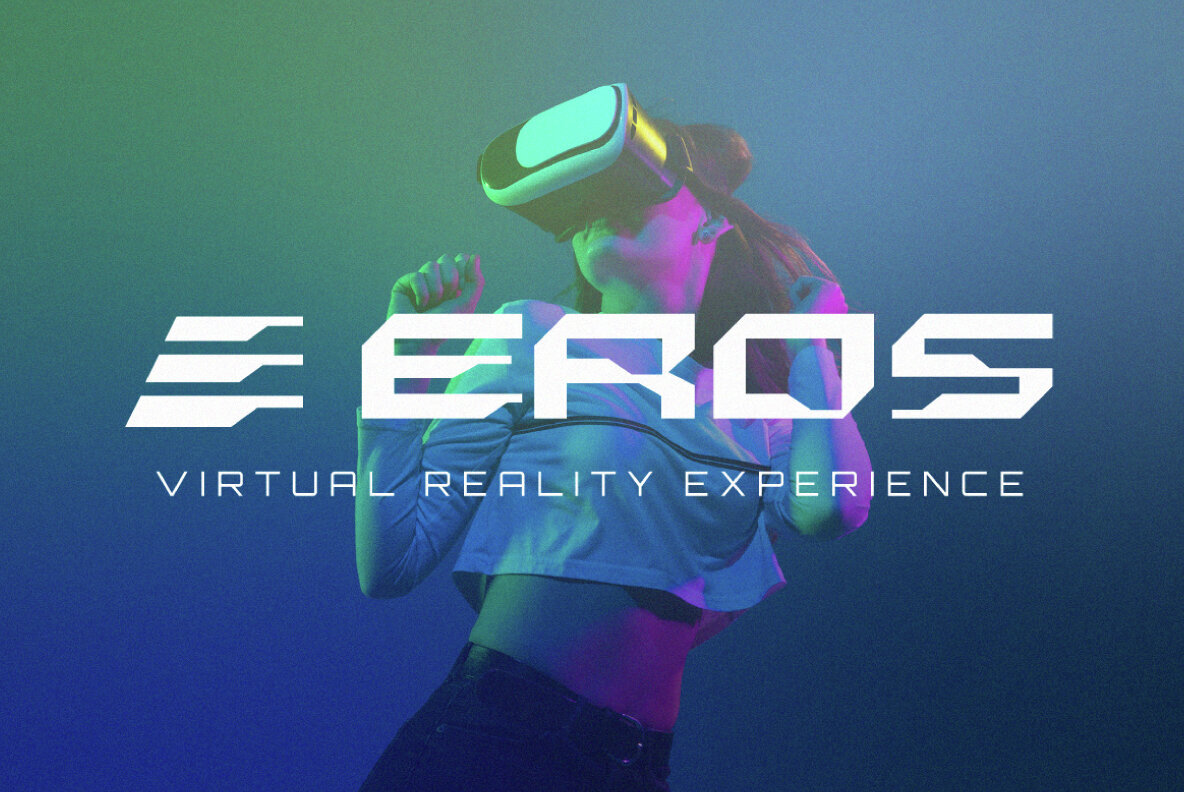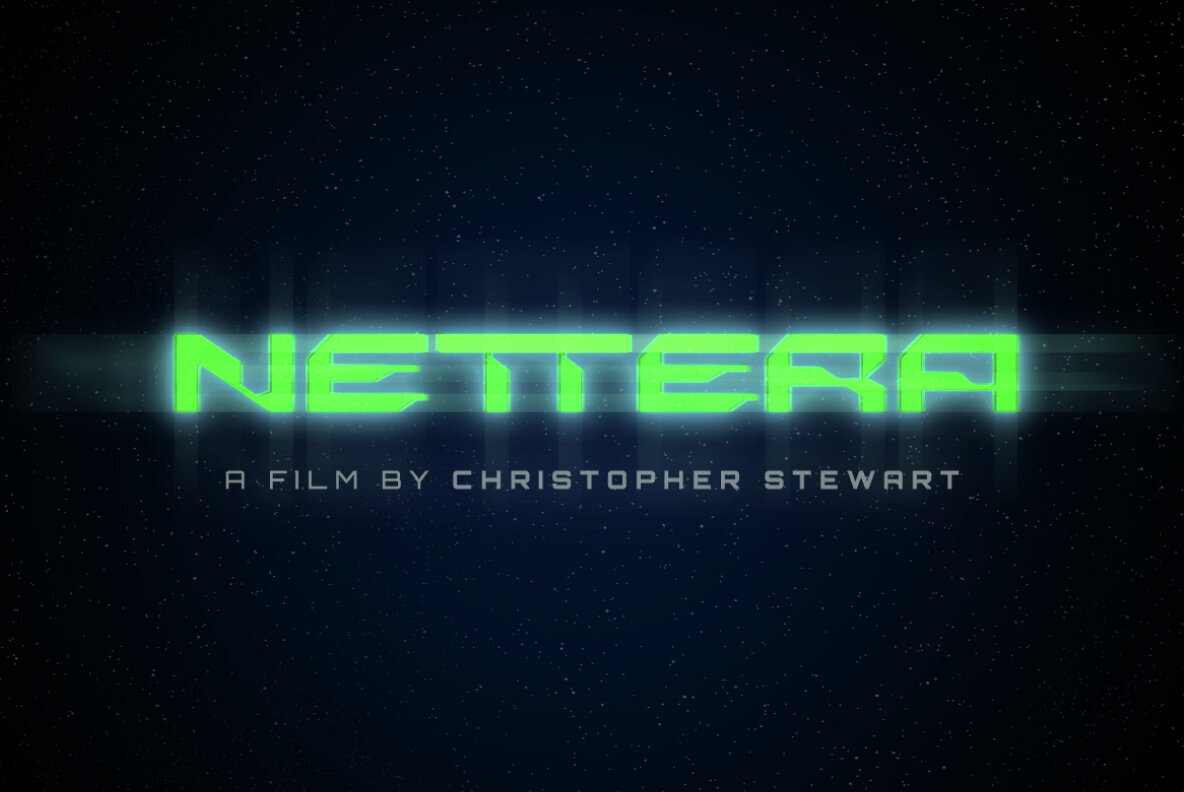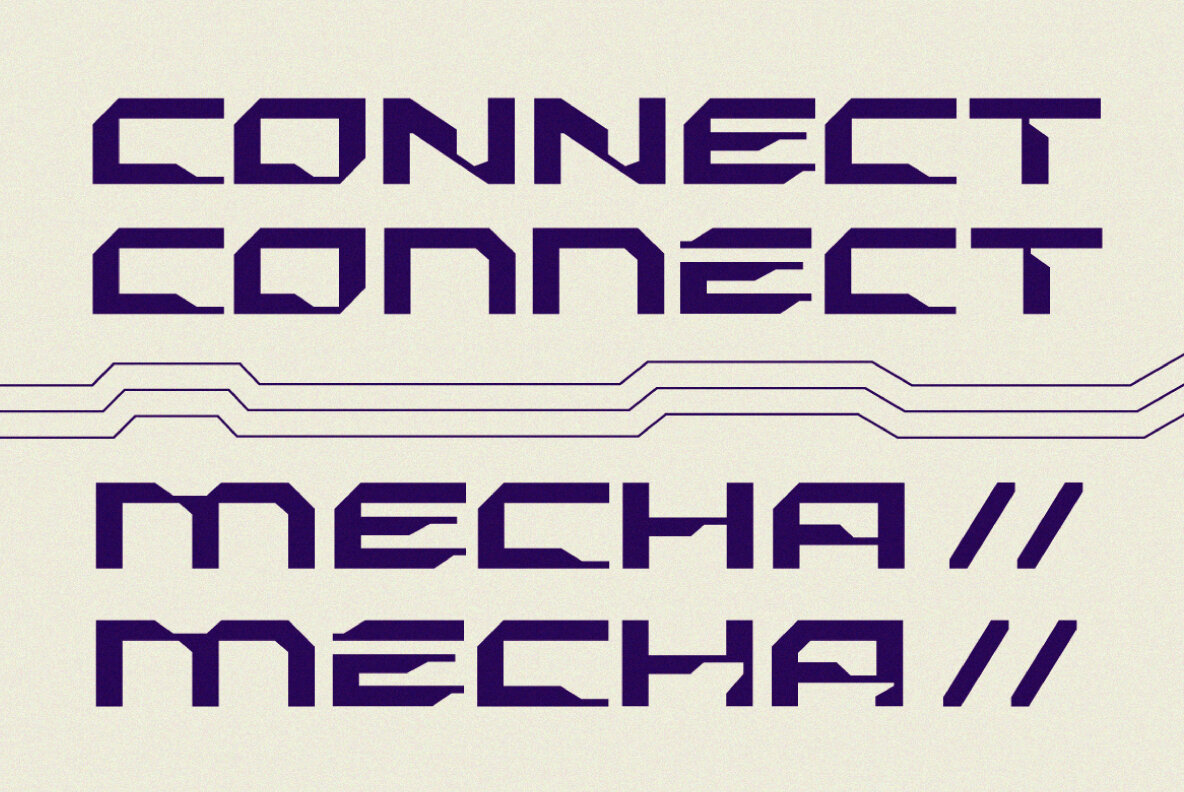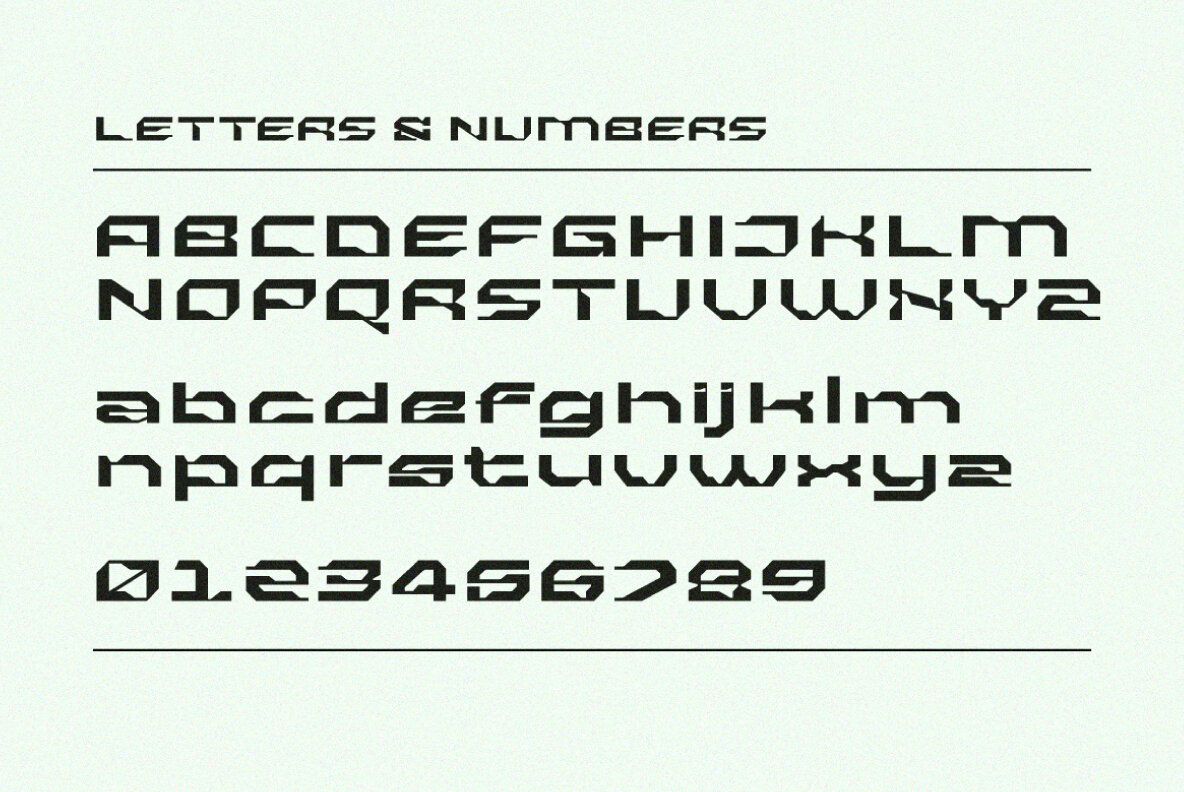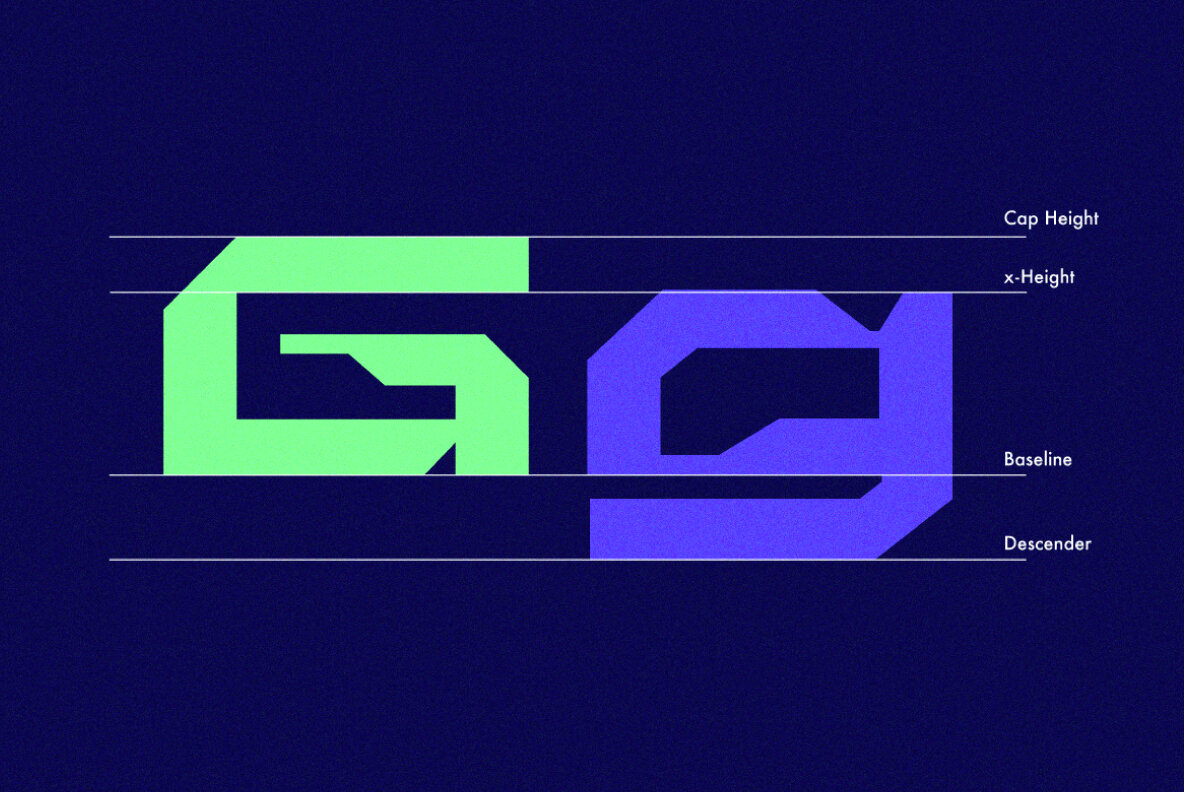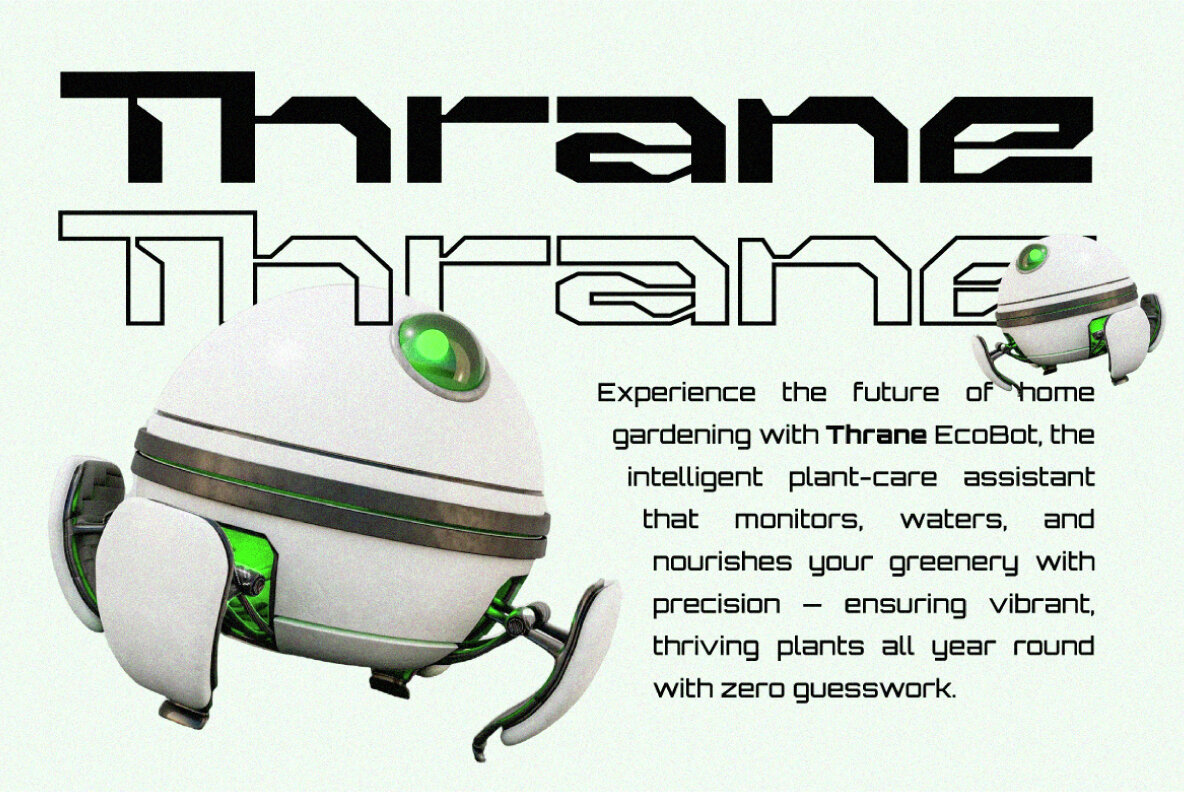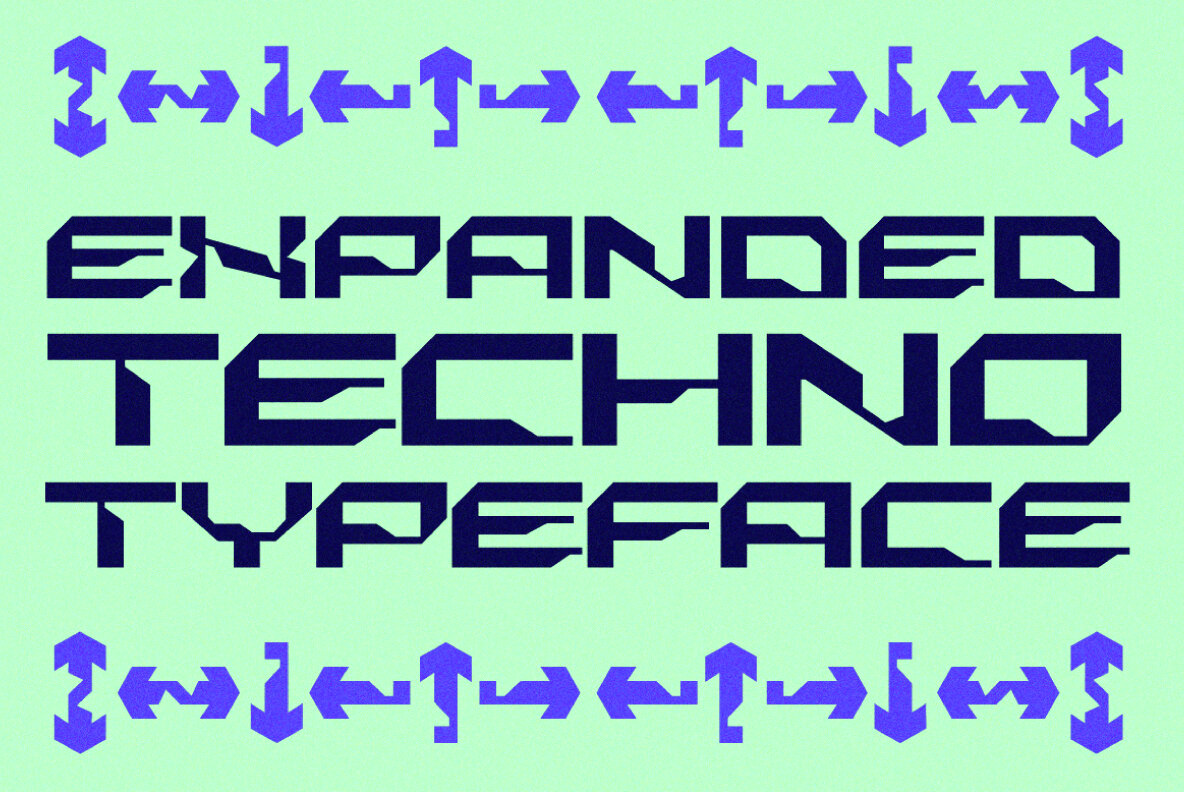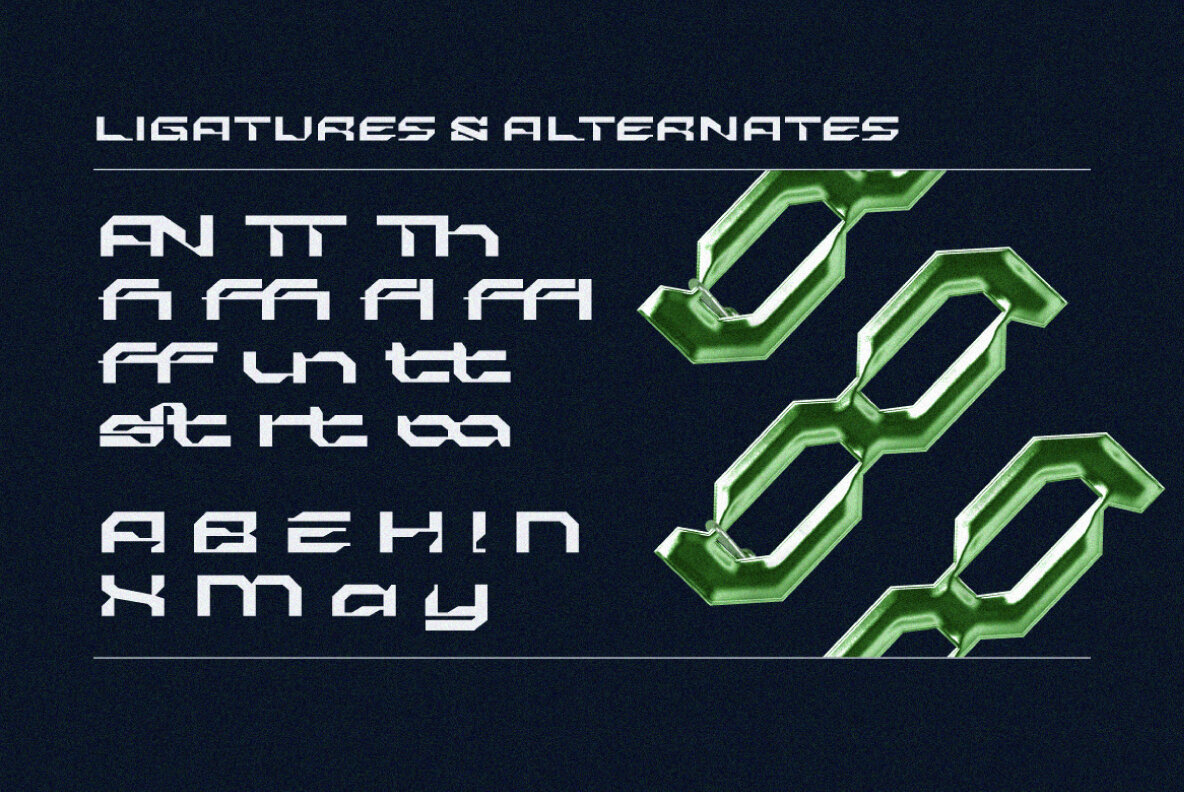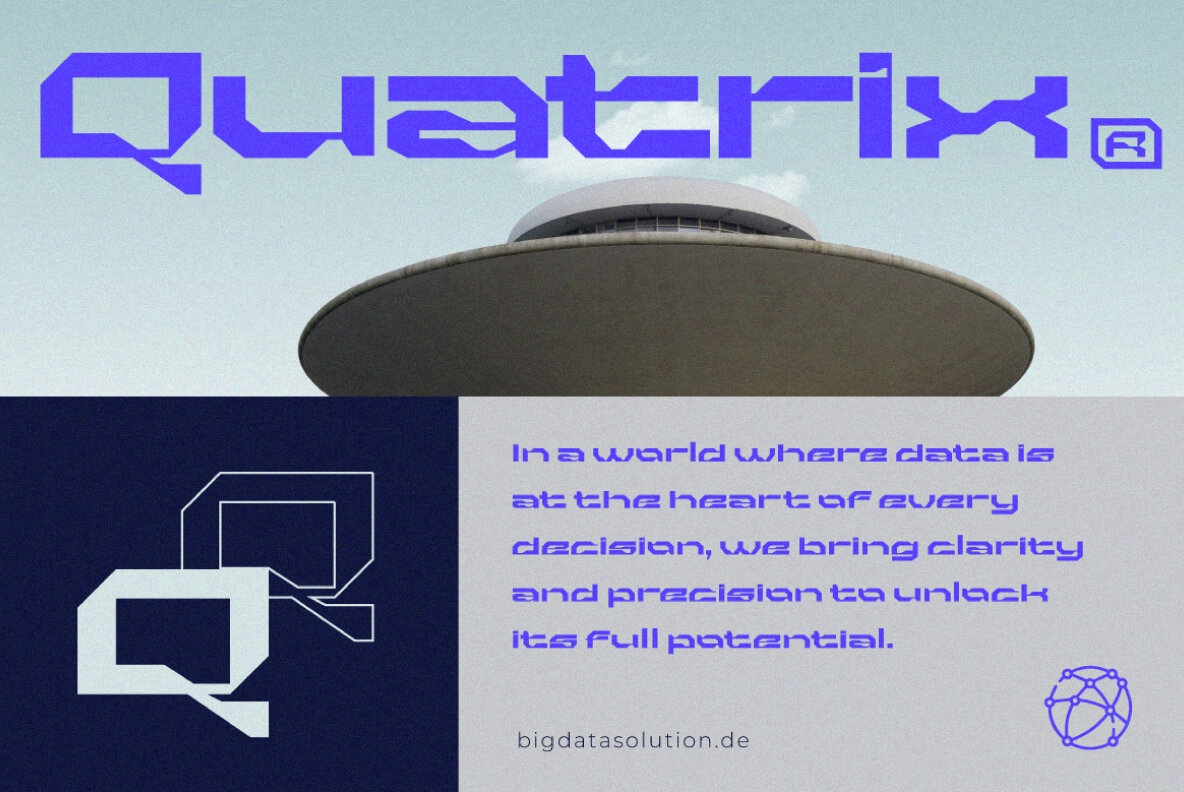
Bitro Font
Bitro
Bitro is a futuristic display font seamlessly combining technology and design elements. Its bold, geometric structure and distinctive cut-out details create a forward-thinking aesthetic ideal for tech-driven brands, gaming projects, and sci-fi visuals. The wide, clean shapes provide a powerful and assertive visual presence, making it a standout choice for any project requiring a hint of innovation.
With minimalist angles that maintain a sleek, modern look, Bitro is perfect for large displays, headers, logos, and posters. Its design ensures that it captures attention and effectively communicates strength and modernity. Whether used in a corporate tech setting or a creative gaming environment, Bitro’s unique characteristics make every design striking and memorable.